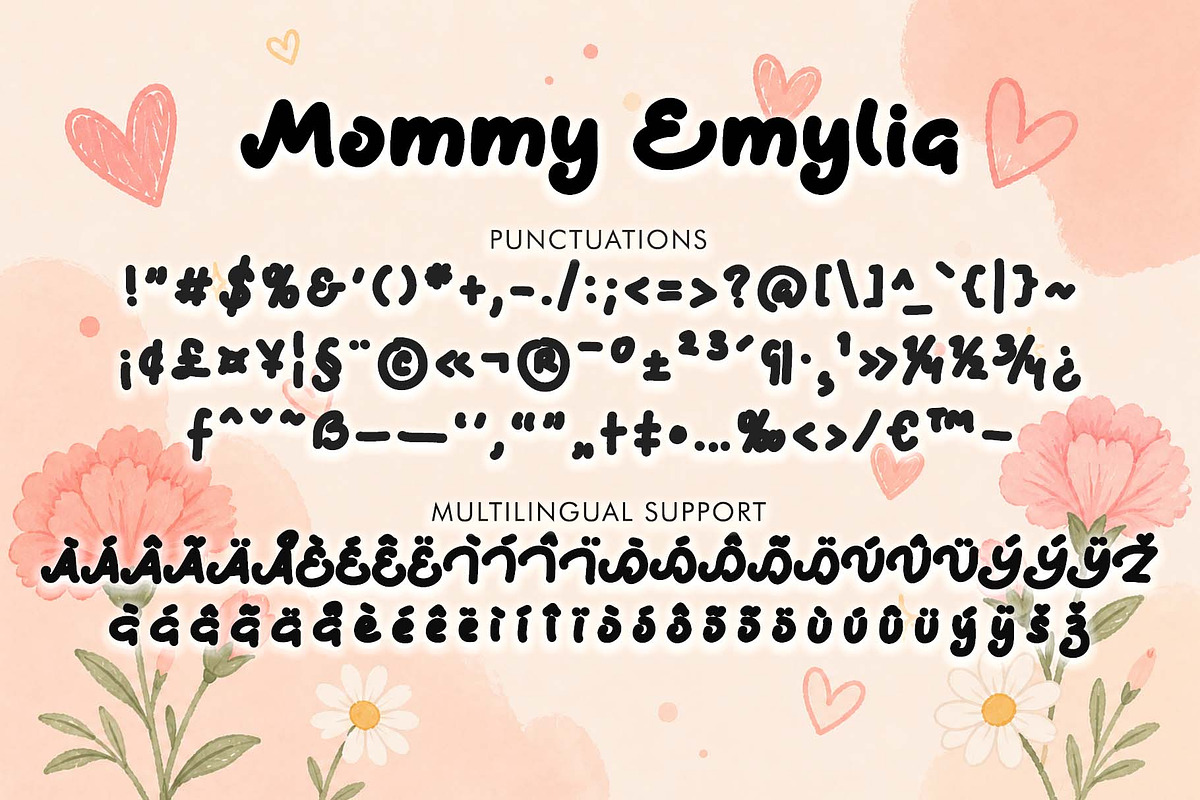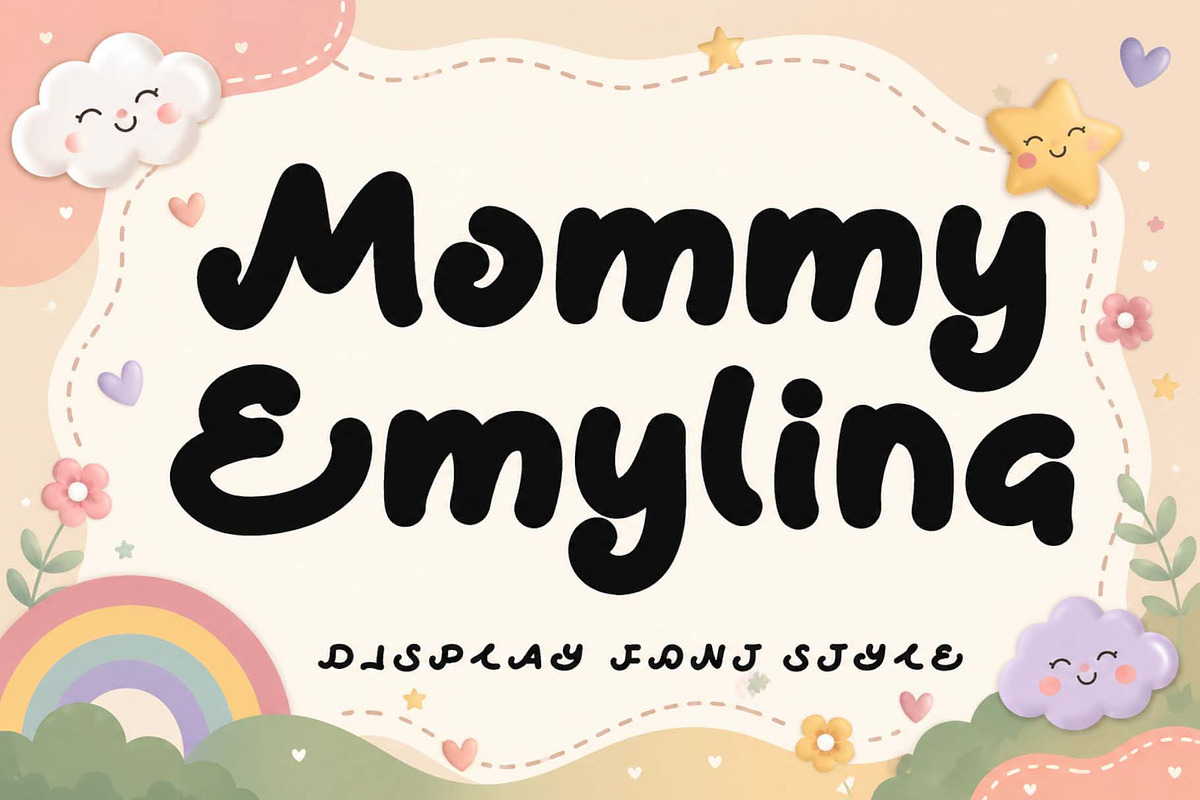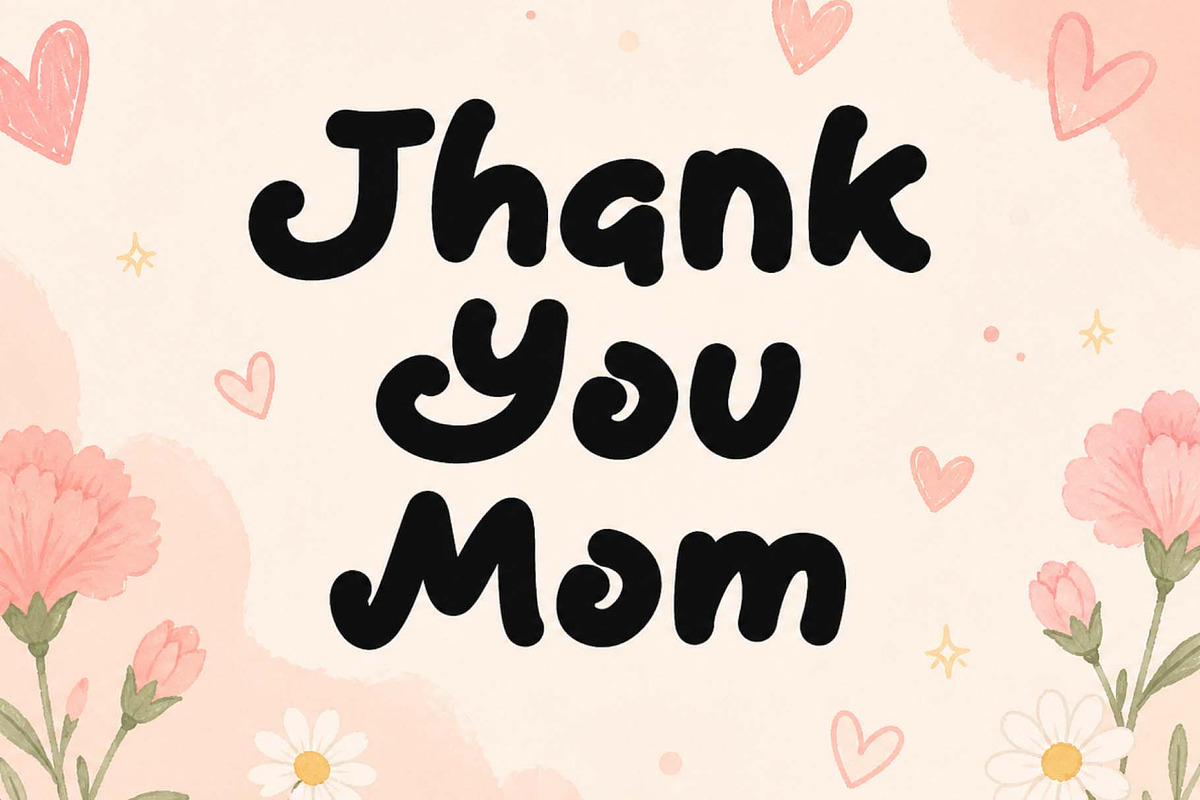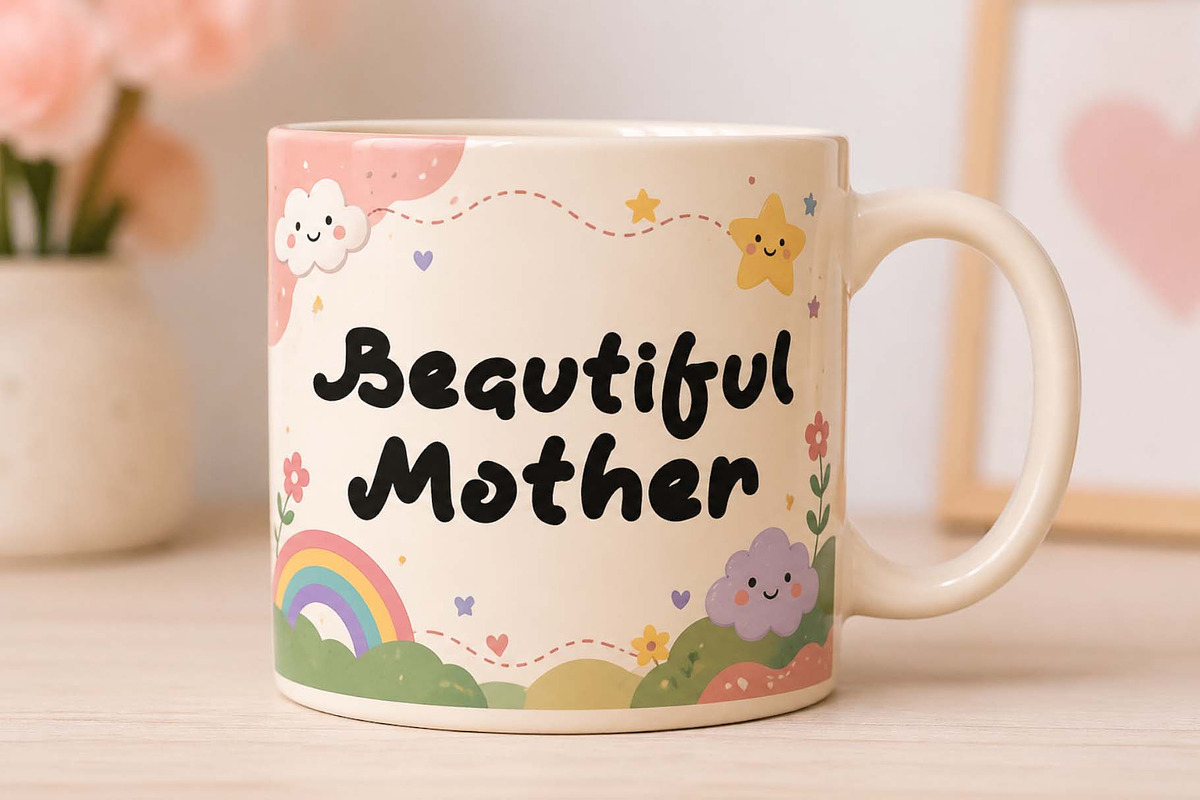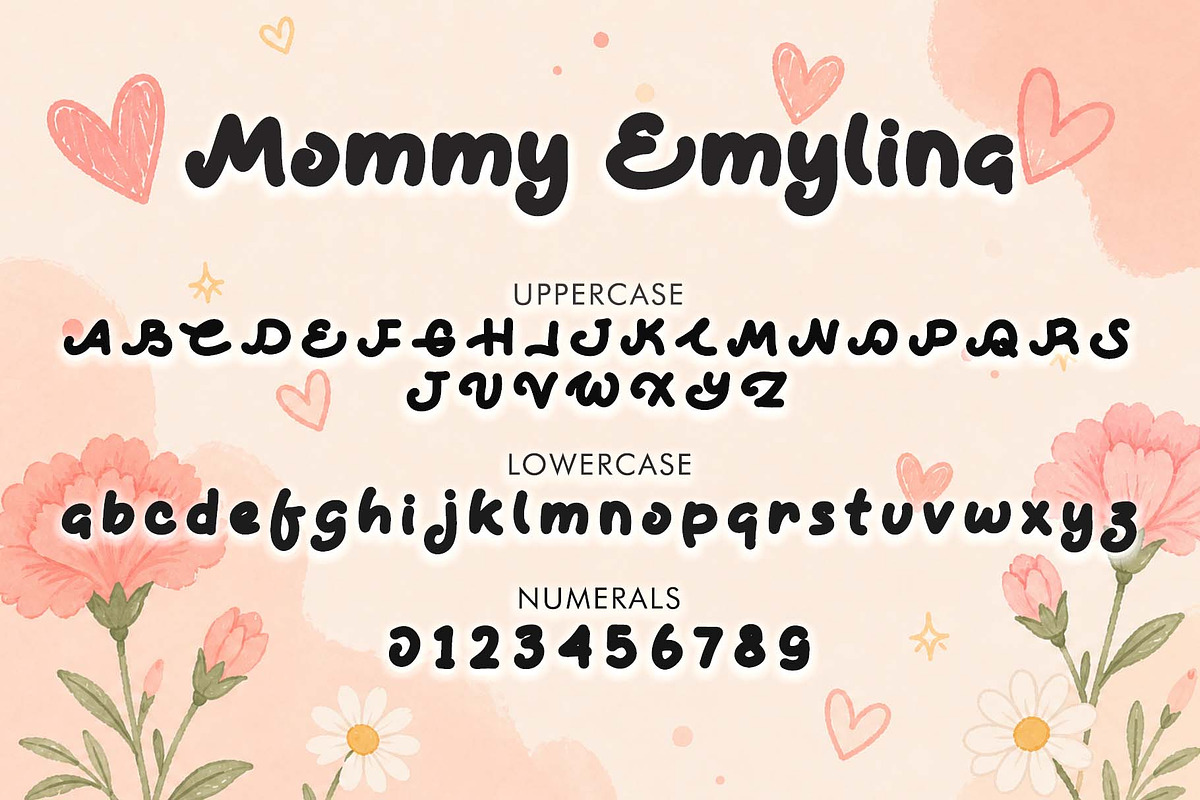
Mommy Emylina
Embrace a world of warmth and wonder with Mommy Emylina, a charming display typeface that captures the spirit of "sweet and playful." This font features bold, deeply rounded letterforms characterized by rhythmic, hand-drawn curves and a soft, bubbly structure that feels like a warm hug. With its heavy, structural weight and playful personality, Mommy Emylina is a top choice for independent baby boutique branding, nursery decor, playful stationery designs, and high-impact, "cheerful and charming" social media headers.